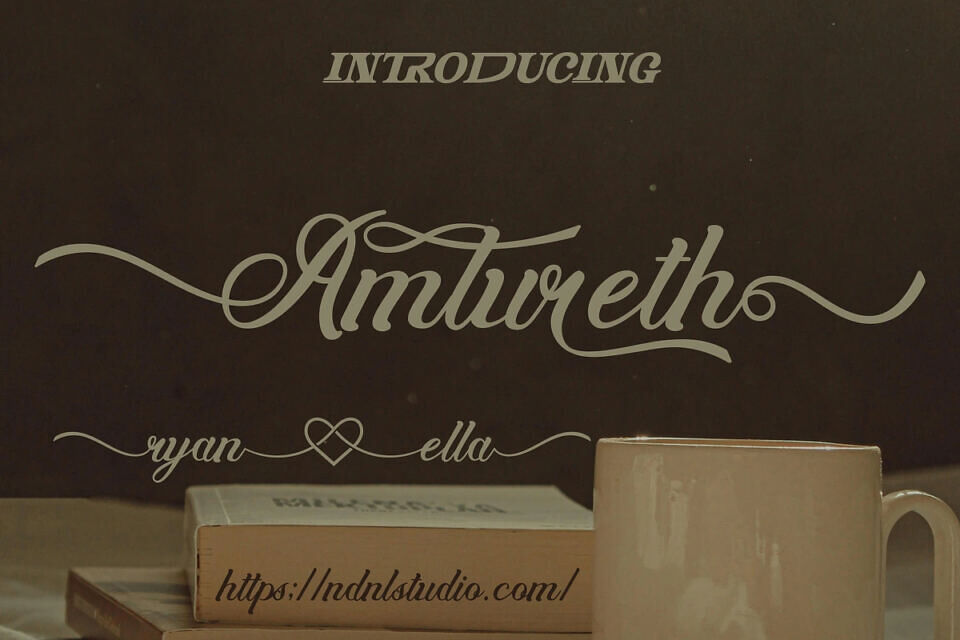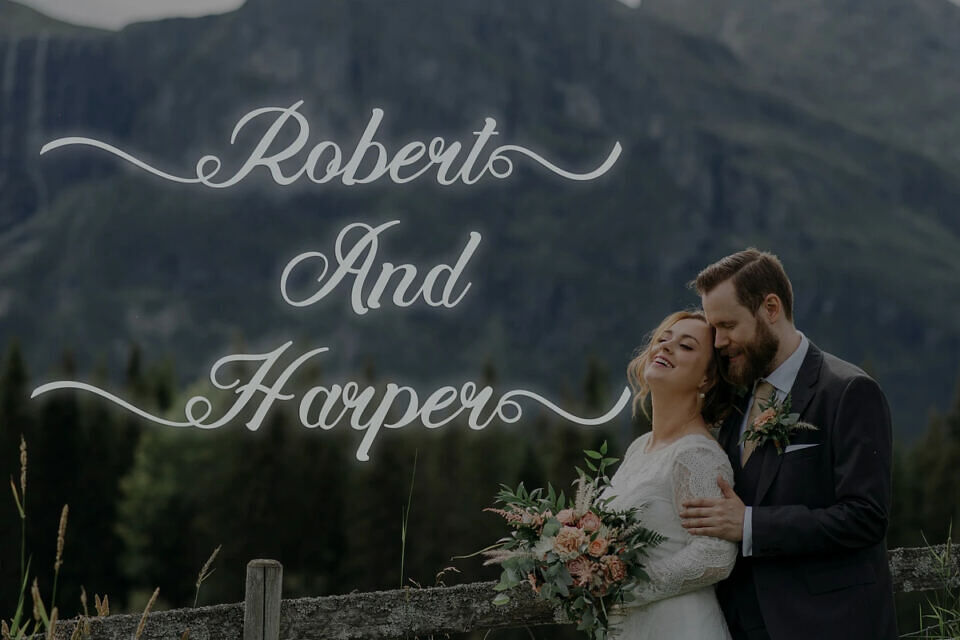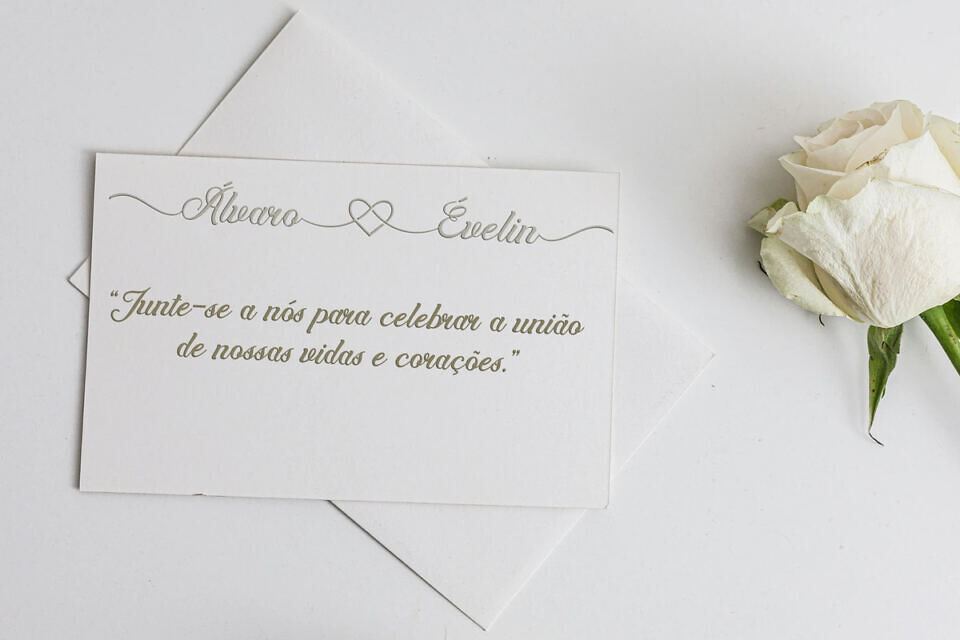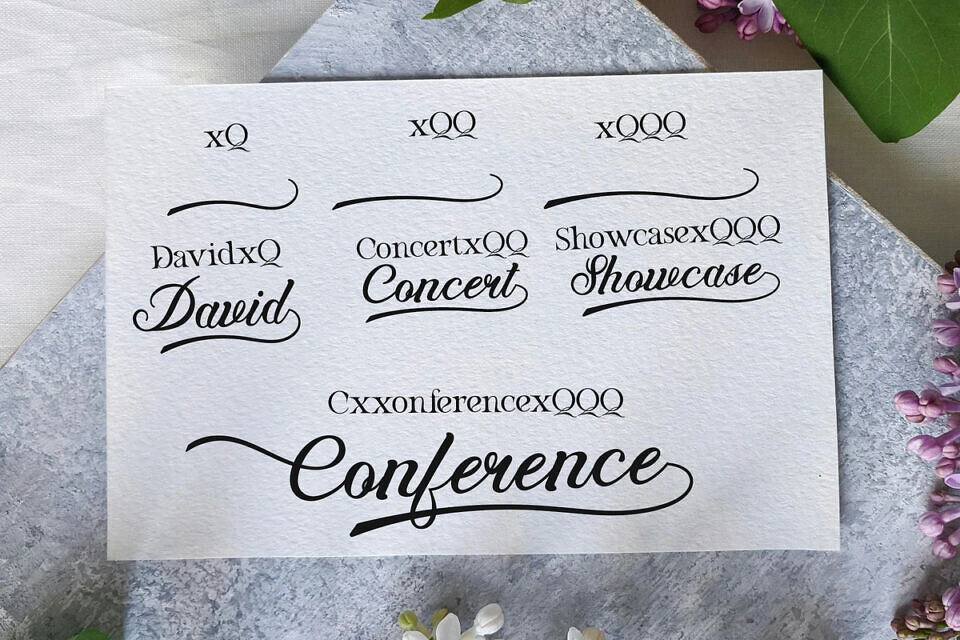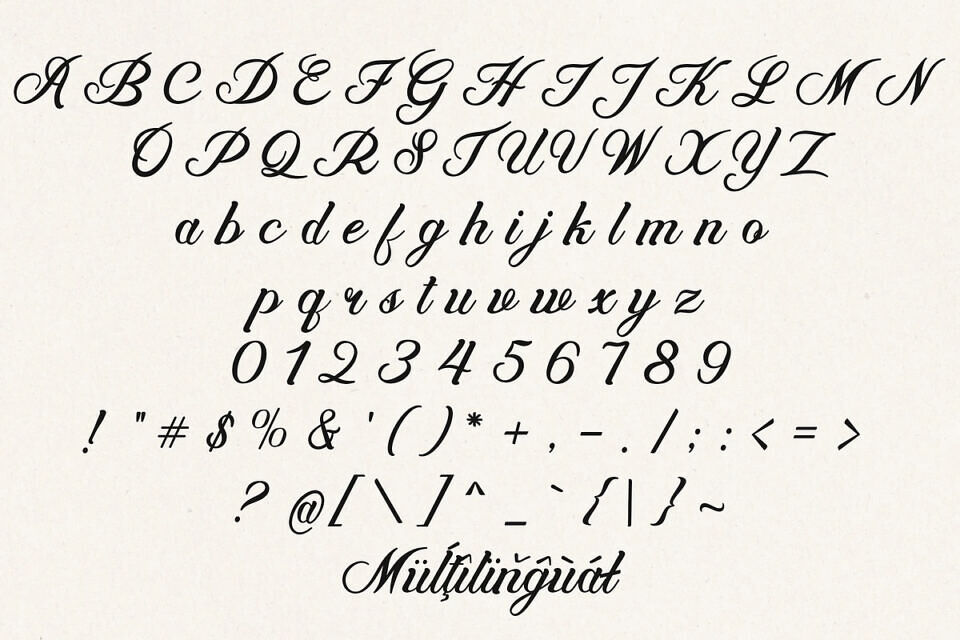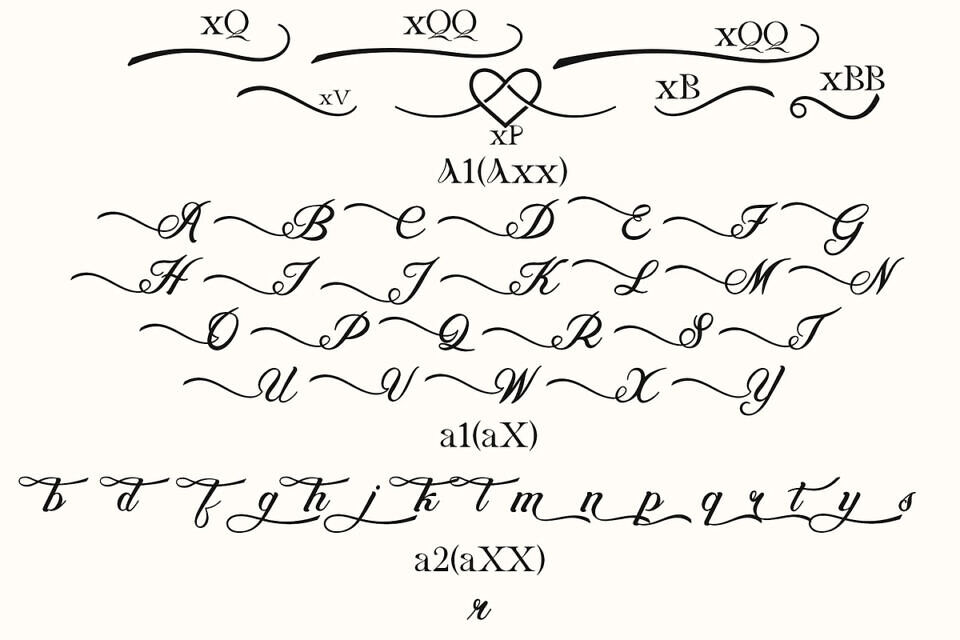
Amlureth Font is an elegant script typeface featuring graceful curves and refined swashes. It is perfect for wedding invitations, branding logos, product packaging, greeting cards, and any project that requires a romantic and captivating touch.
Each character is crafted with attention to detail, bringing a sense of sophisticated artistry that makes your designs stand out beautifully and emotionally.